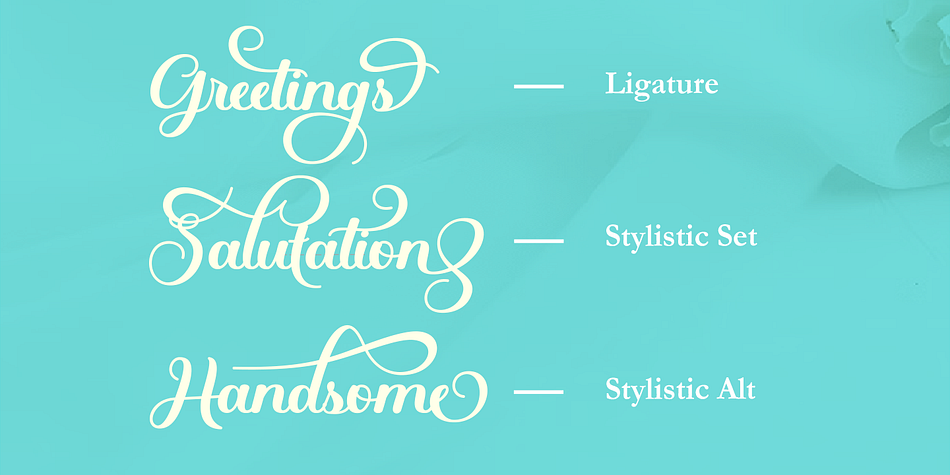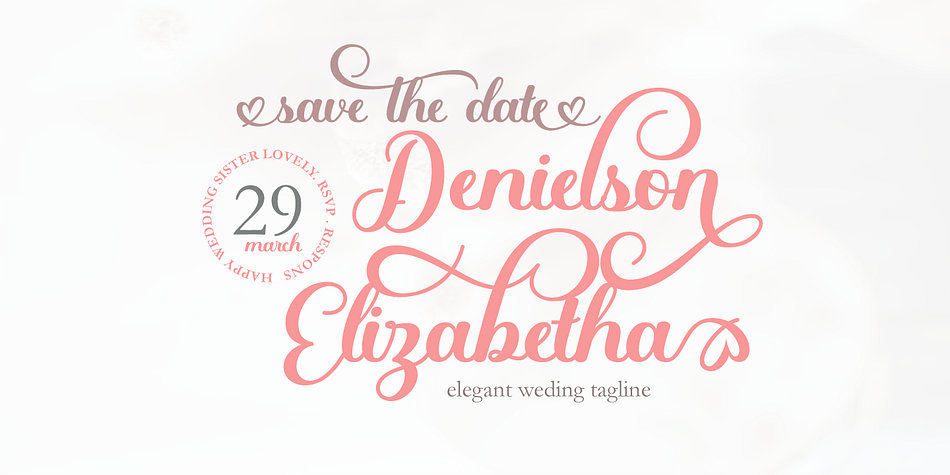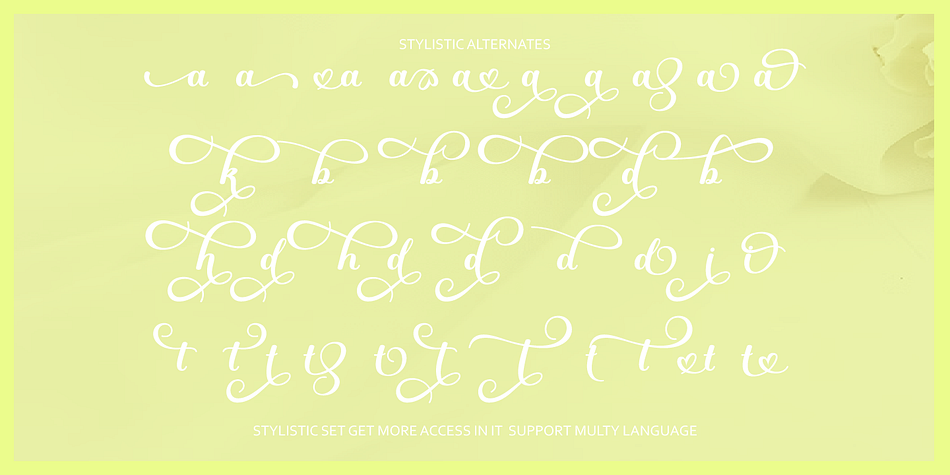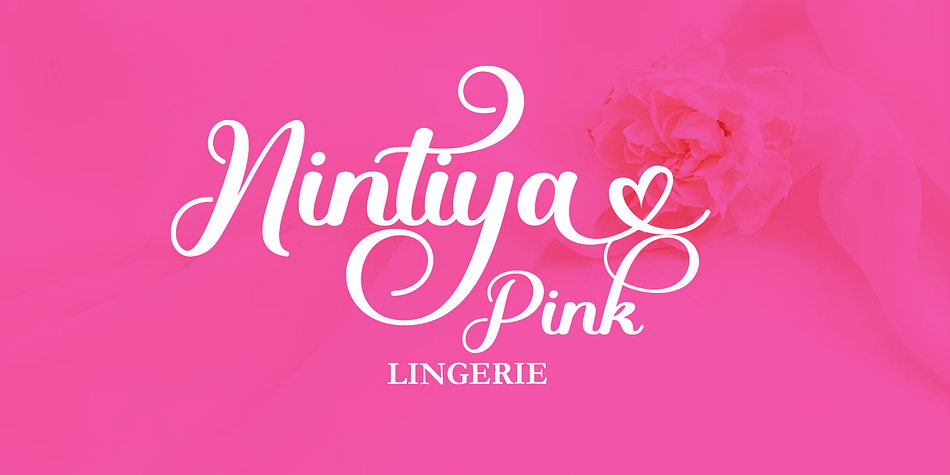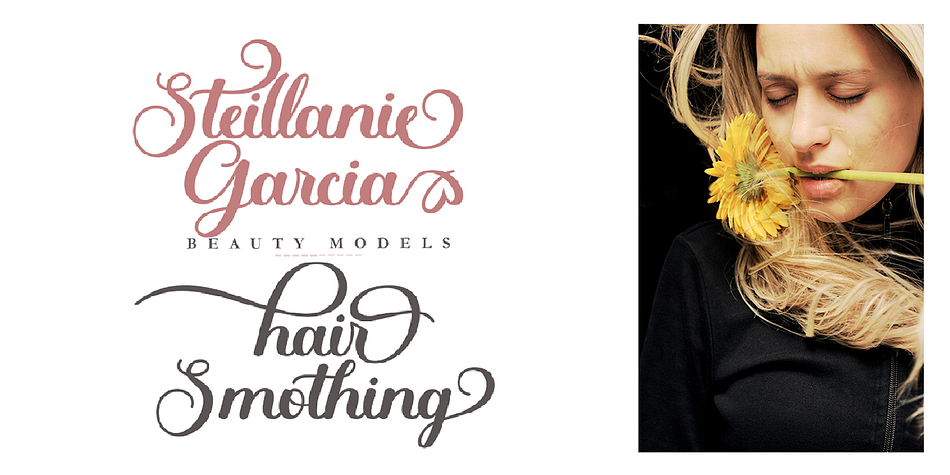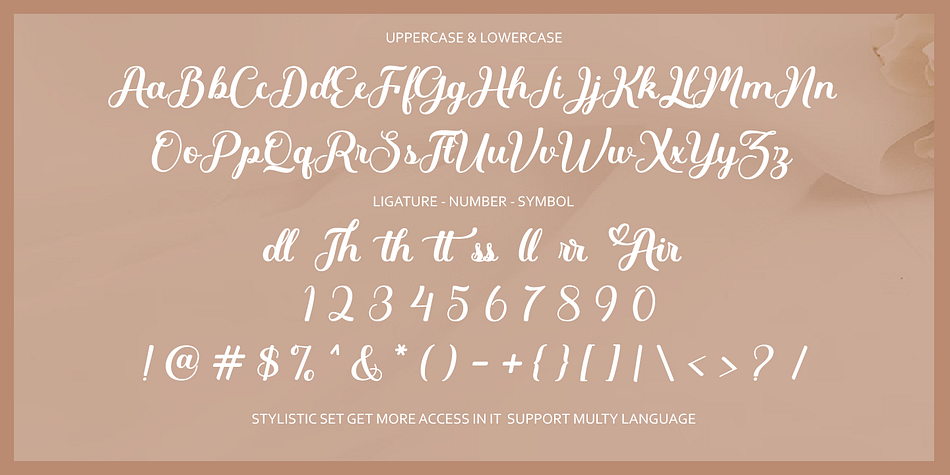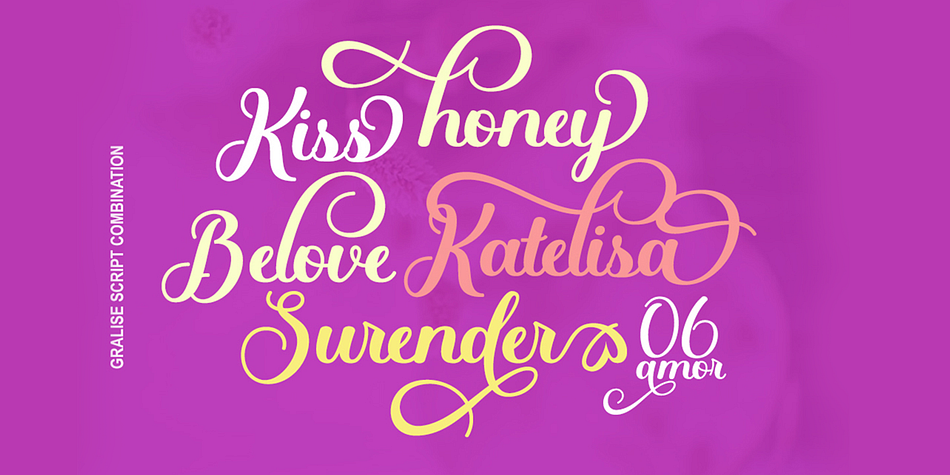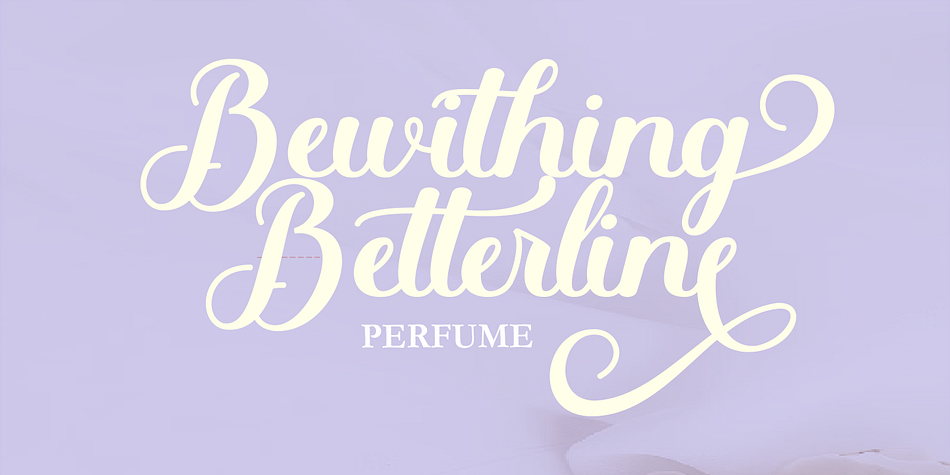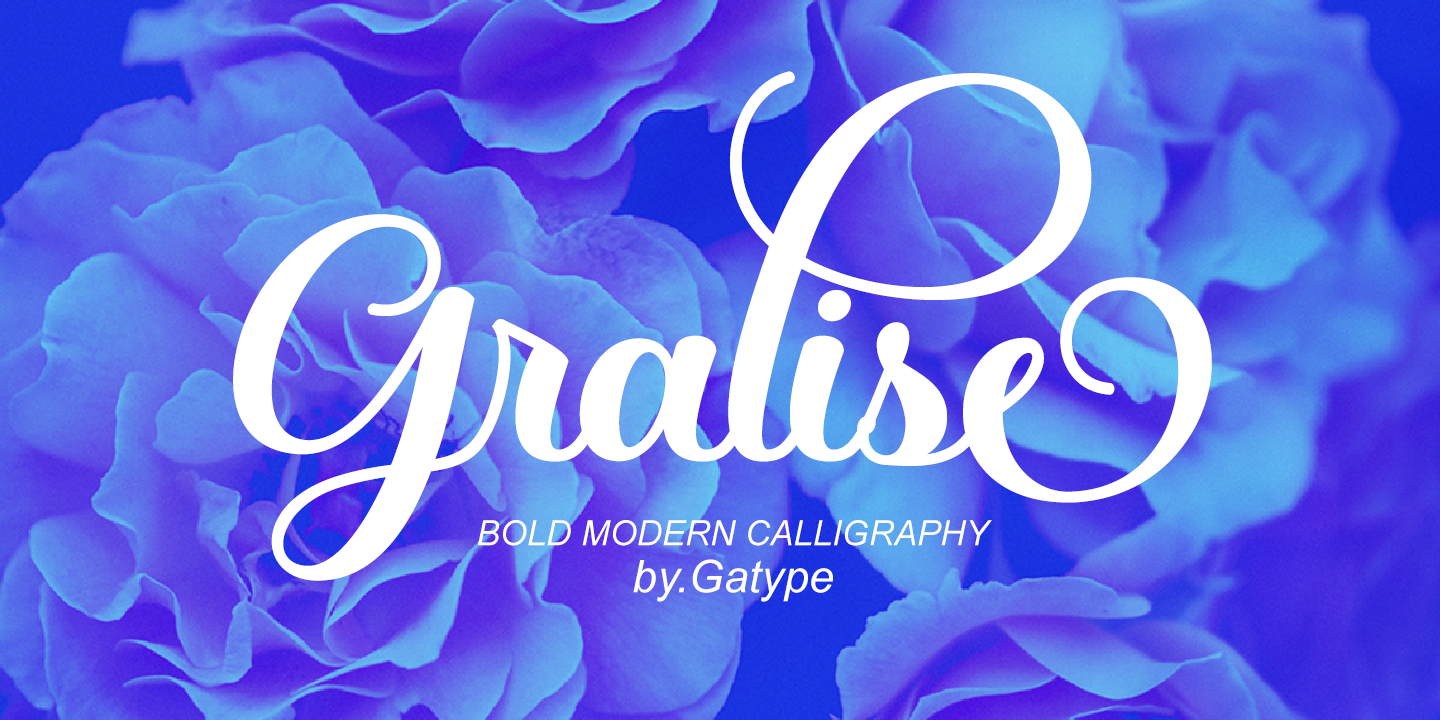
Gralise
Gralise is a brush script font family published by Gatype.
You can get Gralise Script, the previous handwritten model, the latest font, you can get it now! With an updated hand calligraphy model with special glyphs that have been given a combination of fantasy and handwritten ink. This font will look beautiful on any design, Wedding designs, branding materials, blog titles, quotes and invitations, business cards.
OpenType includes:
Alternative Style
Set style
Ligature
SWASH